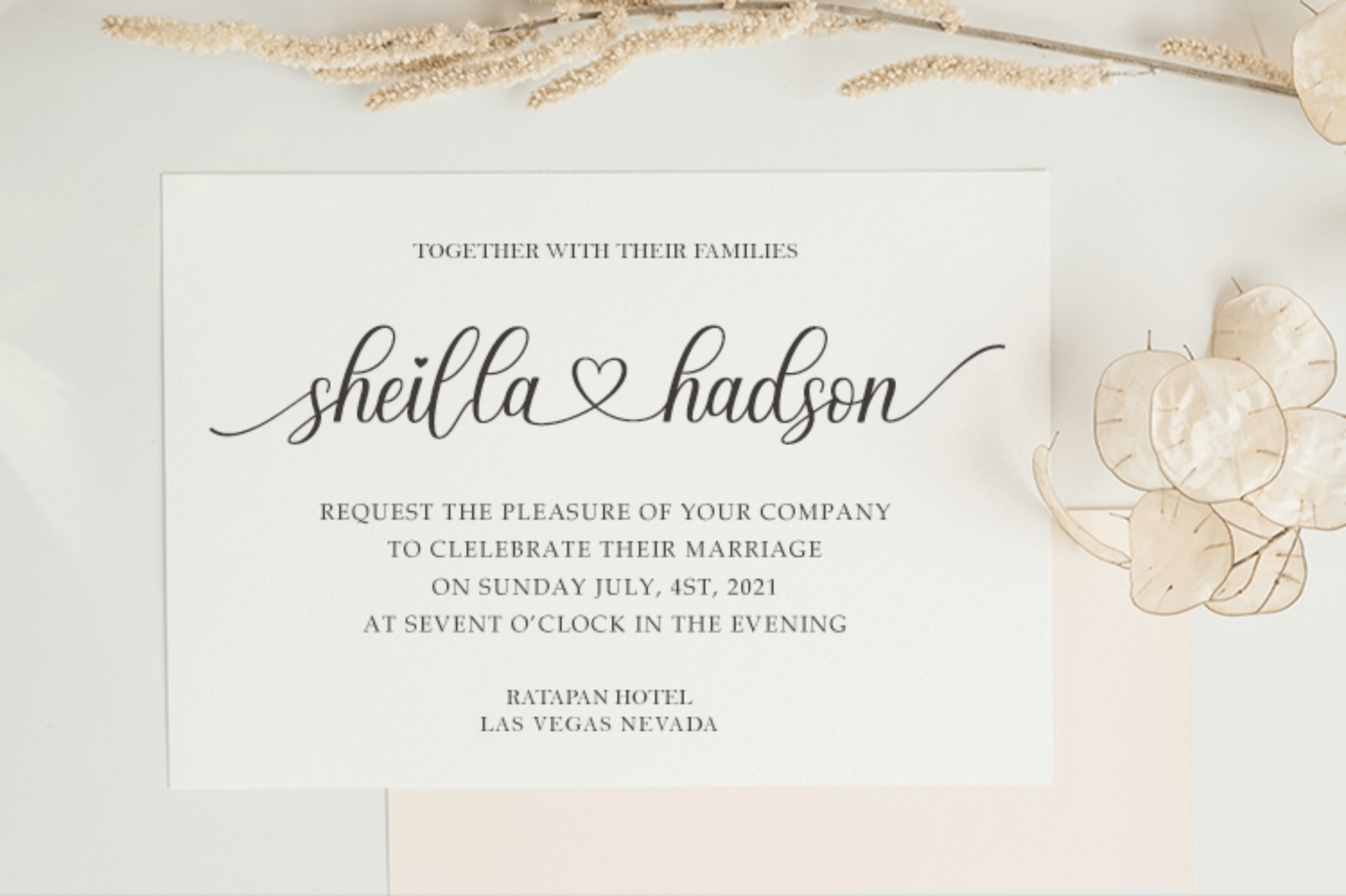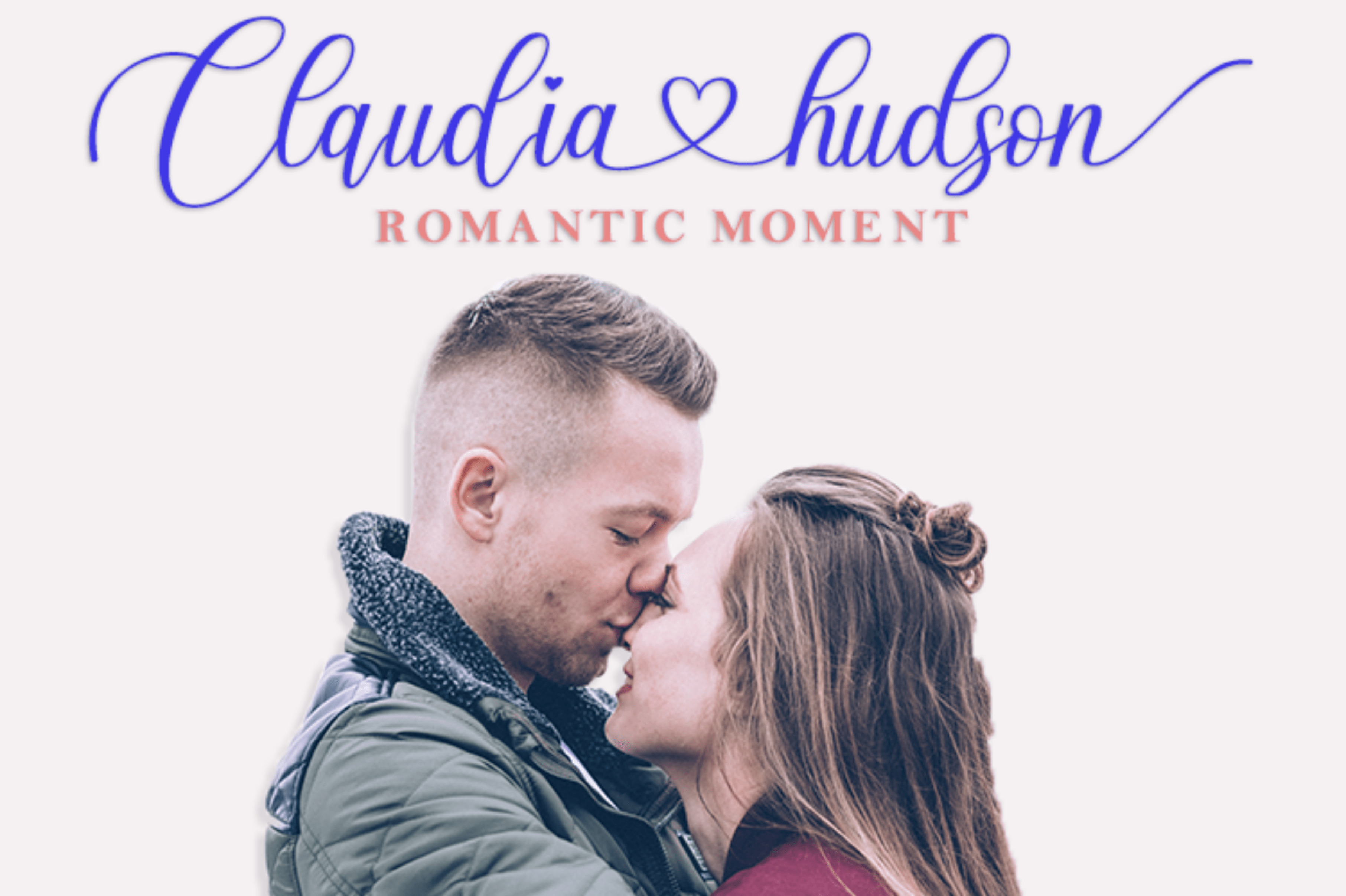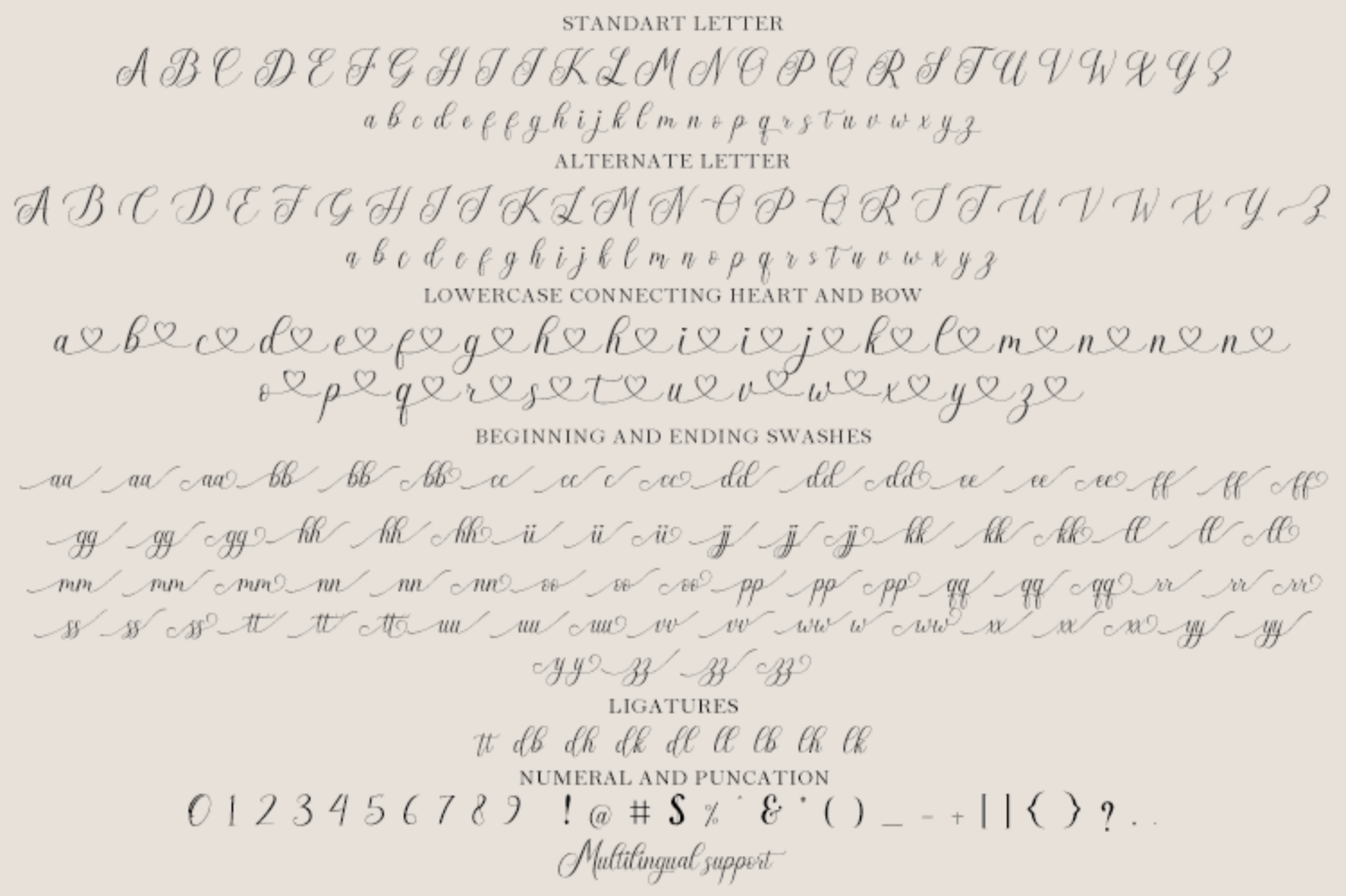
Bisatta Calligraphy Font
This is a lovely and delicate script font that exudes elegance and class. This font was particularly crafted for those who need a beautiful and refreshing look to their designs. Bisatta Calligraphy is PUA encoded which means you can access all of the amazing glyphs and ligatures with ease!